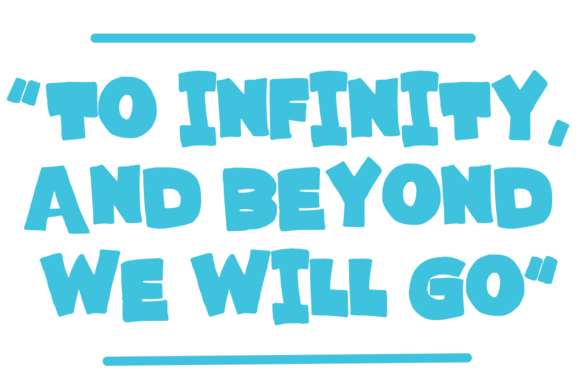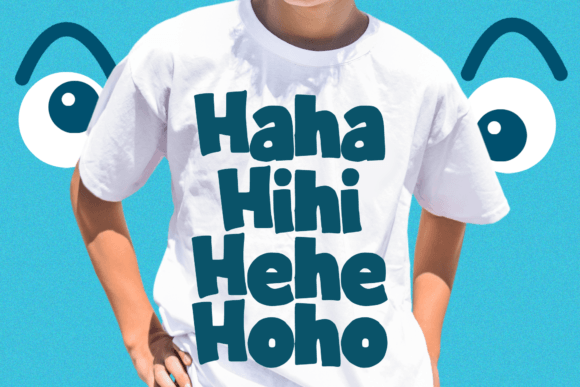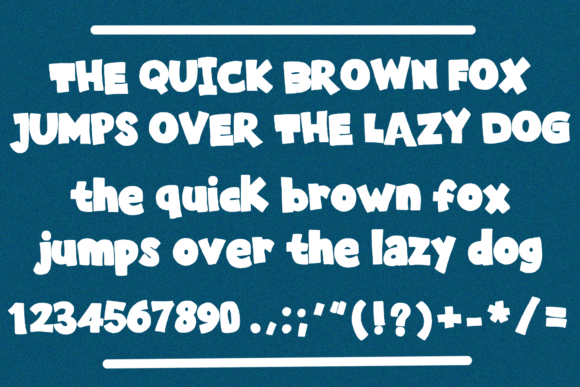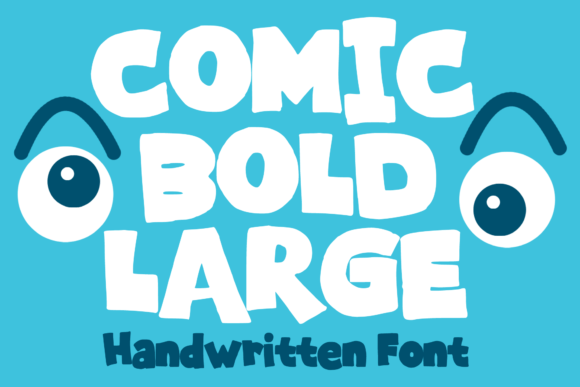
Introducing Comic Bold Large Font: The Ultimate Fun and Playful Display Font
Are you looking for a font that can add a dash of fun and excitement to your designs? Look no further than Comic Bold Large Font! This bold and playful cartoon display font is perfect for a wide range of projects, from t-shirts and clothing to kids’ book designs, party decorations, and more.
What is Comic Bold Large Font?
Comic Bold Large Font is a specially designed font that features bold, chunky letters with a playful and cartoonish feel. Its large size makes it perfect for headlines, titles, and other design elements that need to grab attention. The font’s fun and energetic vibe makes it ideal for projects that require a youthful and lively touch.
Uses for Comic Bold Large Font
The versatility of Comic Bold Large Font is one of its best features. You can use it for a wide range of projects, including:
• T-shirts and clothing: Add a fun and playful touch to your apparel designs with Comic Bold Large Font. It’s perfect for kids’ clothing, party favors, and more.
• Kids’ book designs: Create engaging and interactive books for kids with Comic Bold Large Font. Its bold and colorful letters will keep young readers entertained and excited.
• Kids’ party needs: Make your kids’ party decorations and invitations stand out with Comic Bold Large Font. Use it to create fun and colorful banners, posters, and more.
• Greeting cards: Add a playful touch to your greeting cards with Comic Bold Large Font. It’s perfect for birthday cards, get-well cards, and other celebrations.
• Stickers and posters: Create eye-catching stickers and posters with Comic Bold Large Font. Its bold and colorful letters will grab attention and make your designs stand out.
• Banners: Use Comic Bold Large Font to create fun and colorful banners for parties, events, and more.
Why Choose Comic Bold Large Font?
There are many reasons why Comic Bold Large Font is the perfect choice for your design needs. Here are just a few:
• Fun and playful: Comic Bold Large Font is designed to add a fun and playful touch to your designs. Its bold and cartoonish letters will bring a smile to anyone’s face.
• Versatile: As mentioned earlier, Comic Bold Large Font can be used for a wide range of projects. Its versatility makes it a great addition to any designer’s toolkit.
• Easy to read: Despite its bold and playful design, Comic Bold Large Font is easy to read and understand. This makes it perfect for designs that need to communicate a message or tell a story.
• High-quality: Comic Bold Large Font is a high-quality font that is designed to look great in any design. Its bold and chunky letters will not become pixelated or blurry, even at large sizes.
• Experiment with colors: Comic Bold Large Font looks great in a wide range of colors, from bright and bold to pastel and soft.
• Pair it with other fonts: Comic Bold Large Font can be paired with other fonts to create a unique and interesting design. Try pairing it with a sans-serif font for a fun and playful look.
Comic Bold Large Font is a fun and playful display font that is perfect for a wide range of design projects. Its bold and cartoonish letters make it ideal for kids’ designs, party decorations, and more. With its versatility, ease of use, and high-quality design, Comic Bold Large Font is a great addition to any designer’s toolkit. So why wait? Try Comic Bold Large Font today and add a dash of fun and excitement to your designs!